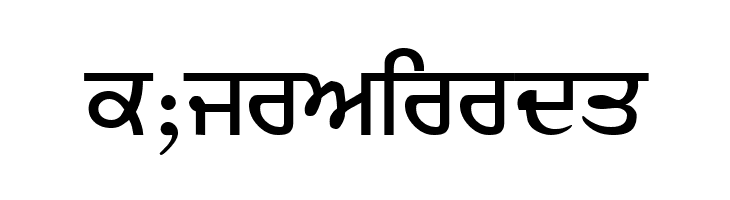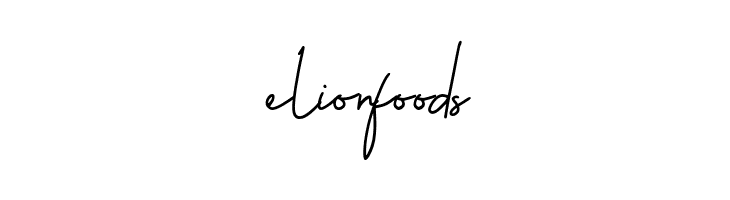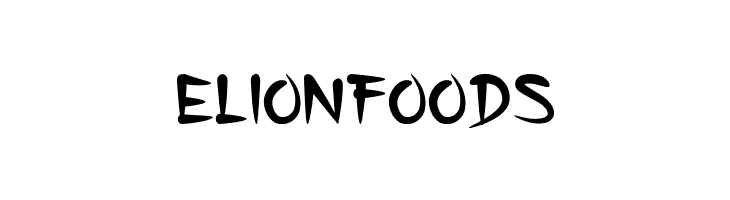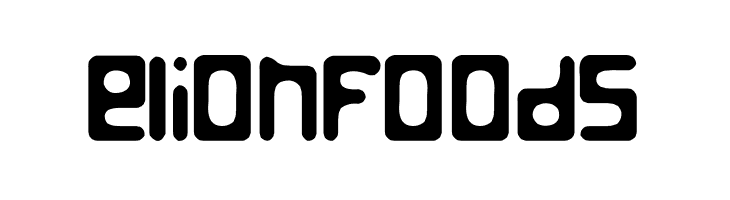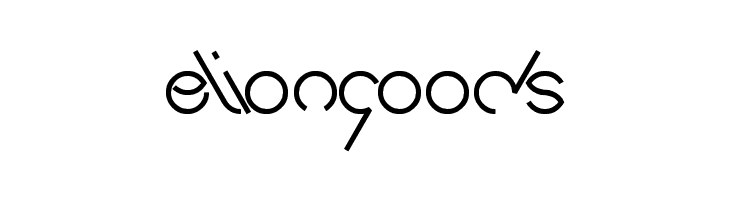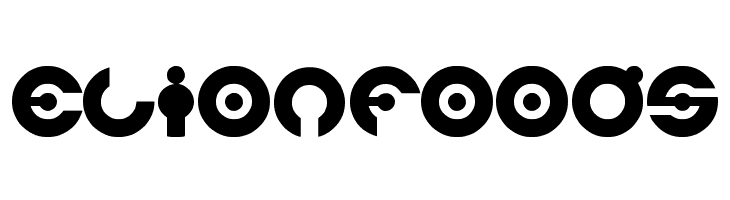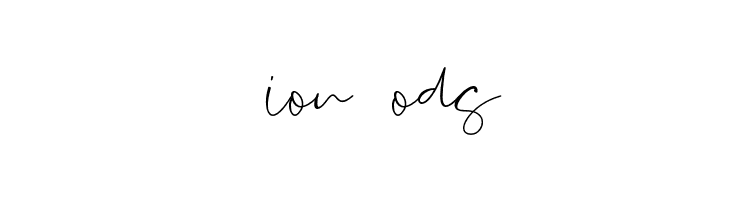
A modern, geometric font with interconnected, flowing lines and a sleek, futuristic style.
A bold, geometric font with a futuristic and abstract design.
A lively, expressive handwritten font with fluid, dynamic strokes.
A playful, artistic handwritten font with flowing, interconnected letterforms.
A bold, dynamic font with sharp, angular strokes and a hand-drawn feel.
A lively handwritten font with fluid, dynamic strokes and a playful, modern style.
A bold, rounded font with a futuristic and playful design.